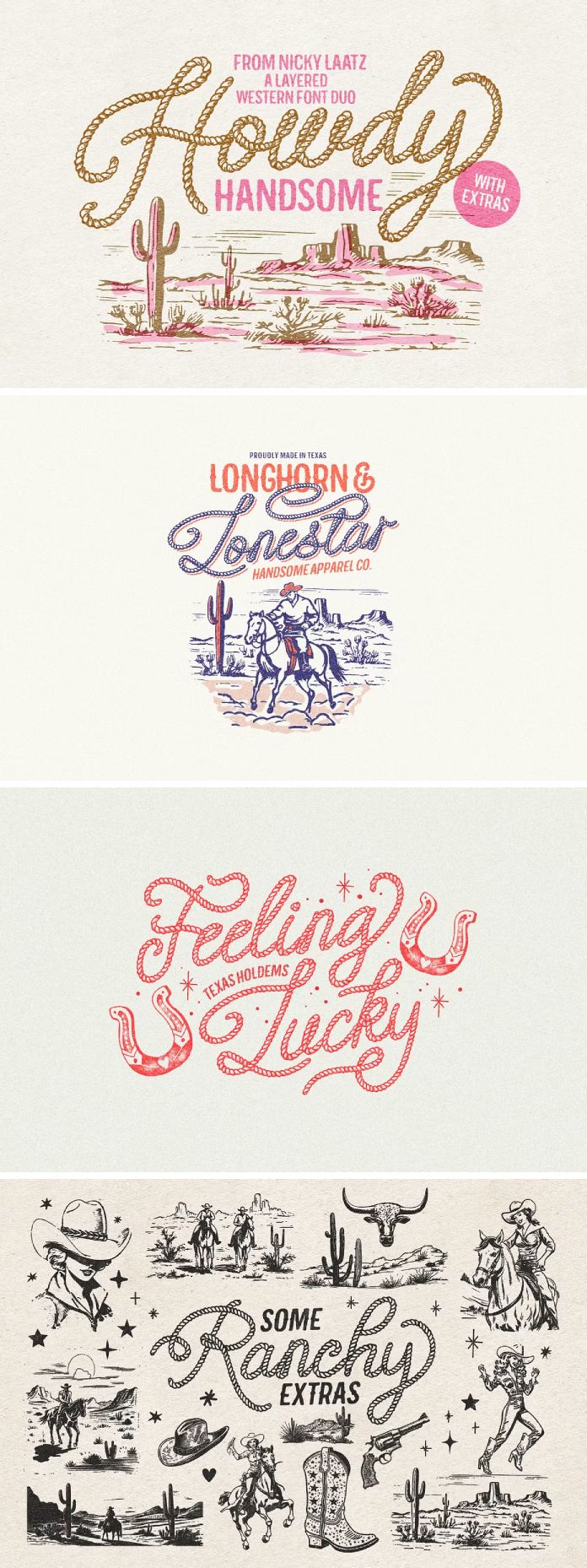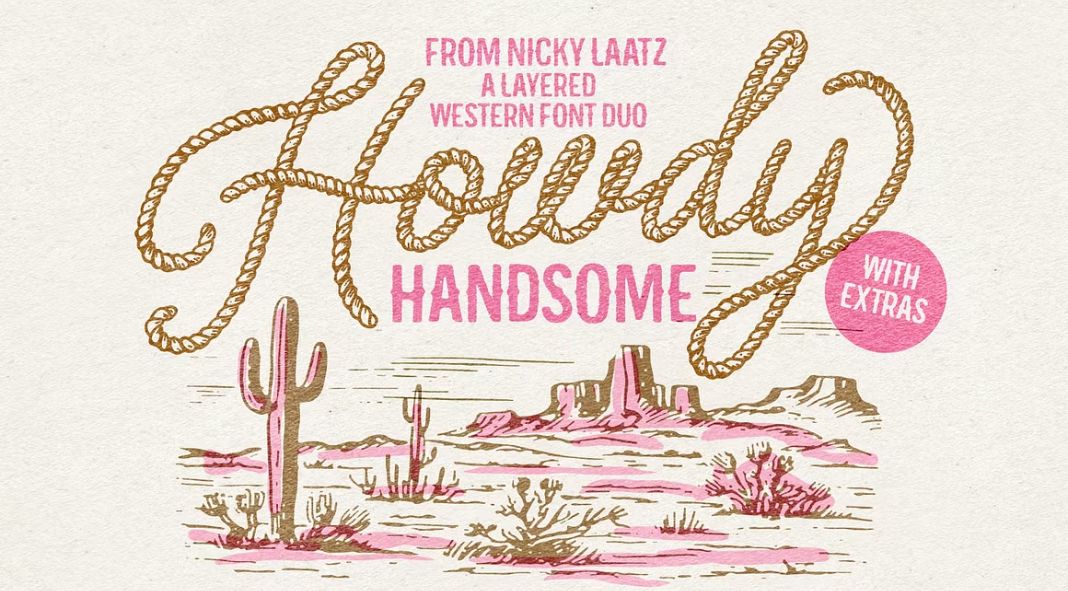
Howdy Partner! Saddle Up for the Howdy Handsome Font Duo
Howdy, design mavericks! Are your fonts feeling a tad, well, plain? Then giddy-up for the rootin’ tootin’est typeface in the west – the Howdy Handsome Font Duo by Nicky Laatz. This layered font duo isn’t just another pretty face (though it is mighty handsome), it’s a design firecracker ready to wrangle in attention for your next project.
Hold on to Your Stetsons: A Font with Grit and Charm
The Howdy Handsome Font Duo isn’t your average two-step. It’s a layered masterpiece, offering a bold, textured base font paired with a clean, complementary outline. This dynamic combination creates a dimensional effect, adding depth and character to your designs. Imagine etching your logo into a weathered barn door, or crafting vintage-style posters that practically whisper tales of the Wild West.
Versatility That Rivals a Swiss Army Knife
The beauty of Howdy Handsome lies in its versatility. While it evokes a sense of rugged Americana, this font duo can lasso a variety of design aesthetics. Use it for:
- Branding with a touch of personality: Craft logos, packaging, and social media graphics that exude a unique, memorable charm.
- Western-themed designs: Howdy Handsome is a natural fit for posters, flyers, and invitations for rodeos, country concerts, or Wild West-inspired events.
- Retro and vintage projects: The font’s textured base adds a touch of aged character, perfect for creating nostalgic designs with a contemporary twist.
- Crafting a playful tone: Howdy Handsome’s inherent friendliness makes it ideal for children’s book illustrations, greeting cards, or any project that needs a touch of lighthearted fun.
Nicky Laatz: The Design Wrangler Behind the Font
Howdy Handsome is the brainchild of Nicky Laatz, a graphic designer with a knack for crafting fonts that resonate. Nicky’s passion for typography shines through in the details of this design, making it a must-have for any designer’s toolkit.